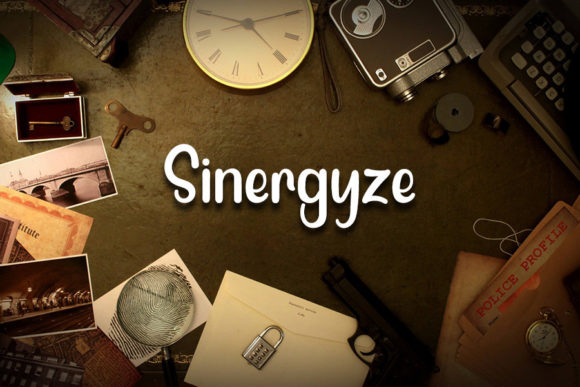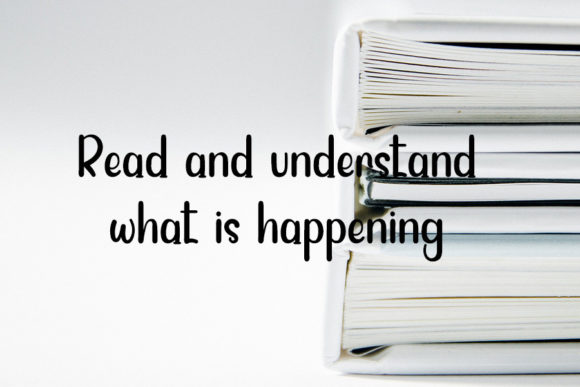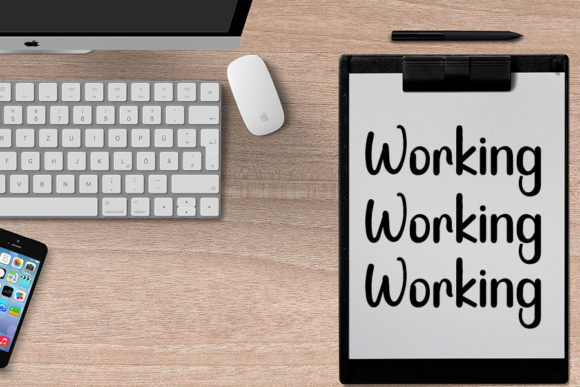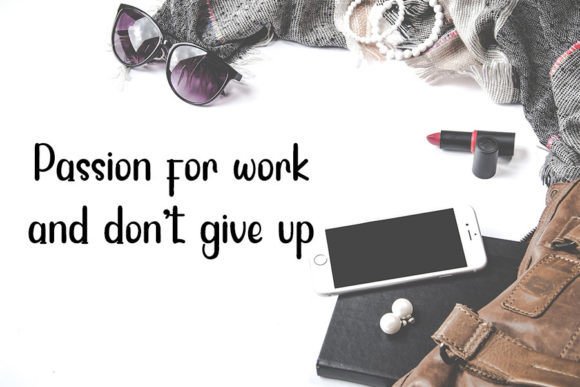
Gaming Screen Font
About Gaming Screen Font
Gaming Screen is a playful and smart-looking handwritten font. It is the ideal choice for creating eye-catching logos, branding, and quotes. Every letter has a unique and friendly touch, which will make your design come alive!